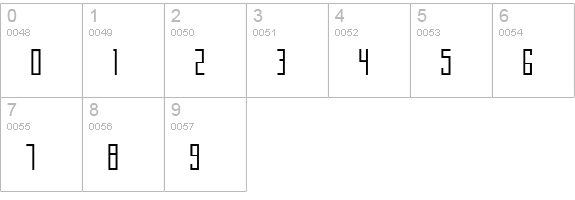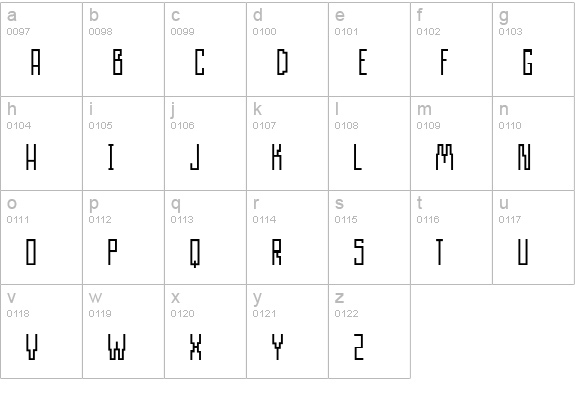
AIRWAVE 1 Font Details
AIRWAVE 1 font is a modern and sleek typeface that exudes a sense of elegance and sophistication. With its unique design and clean lines, this font is perfect for a wide range of design projects, from branding to editorial design. Featuring a stylish geometric look, AIRWAVE 1 font is versatile and can add a touch of contemporary flair to any project. Whether you're designing a website, creating a logo, or working on a poster, this font will help your work stand out. The best part? AIRWAVE 1 font is completely free to download at FontsMarket.com! You can easily access this font and start using it in your projects right away. Don't miss out on this fantastic opportunity to enhance your designs with AIRWAVE 1 font.